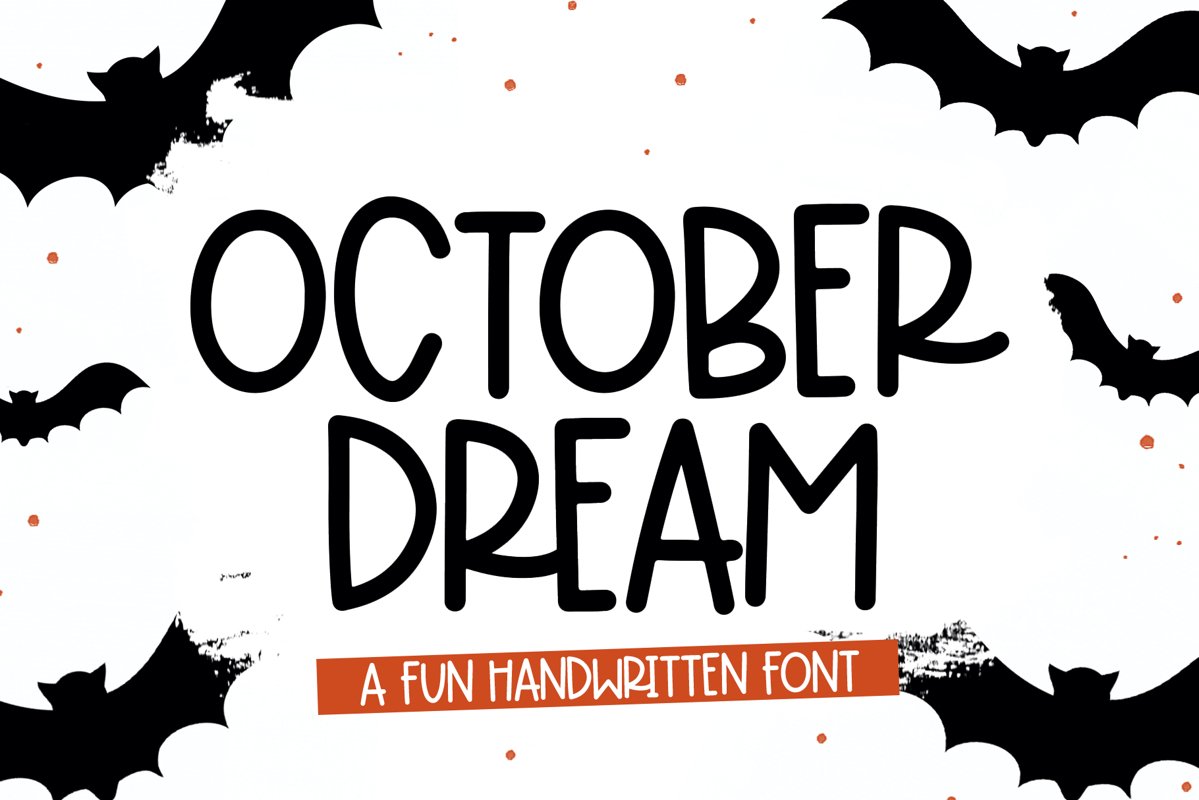
October Dream is a fun handwritten font!
This font is perfect for quotes, shirt designs, websites, branding, children's designs, svg designs, blogs, logos, invitations and more!